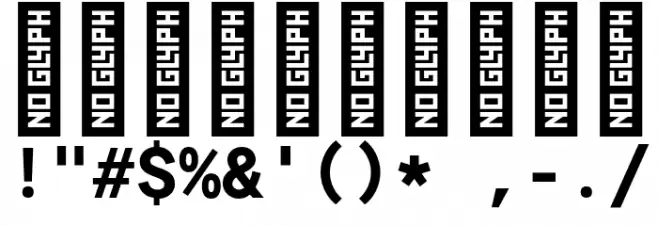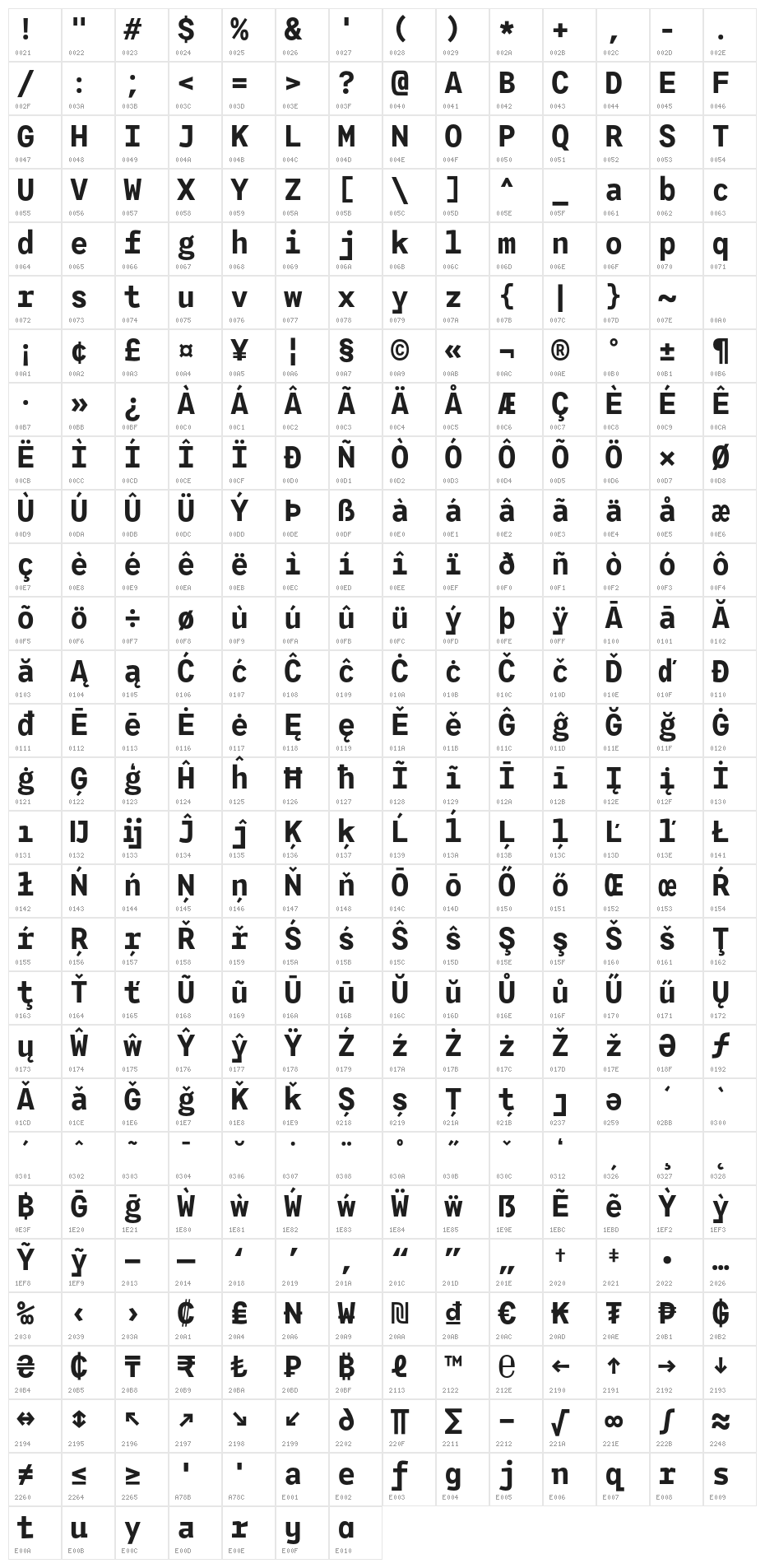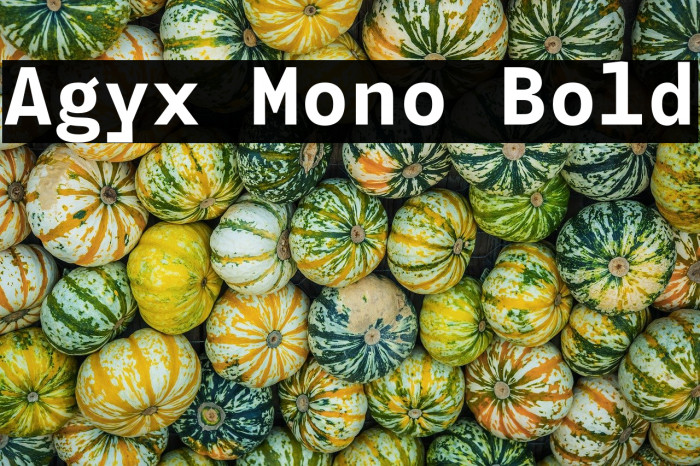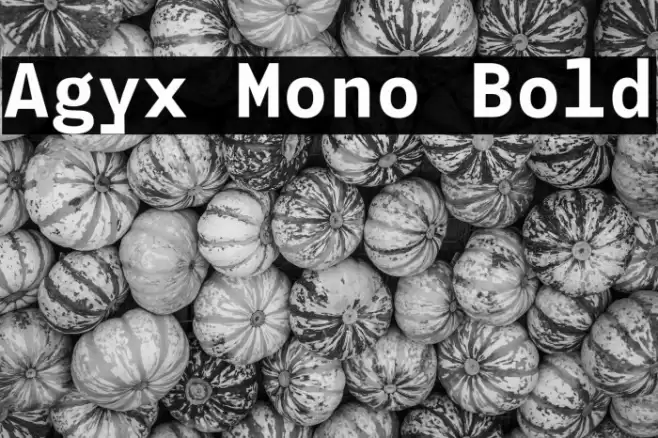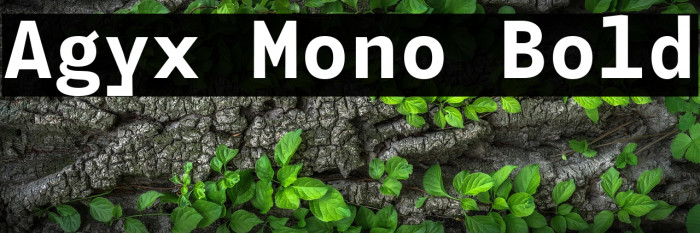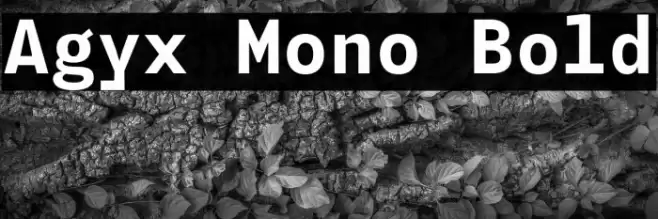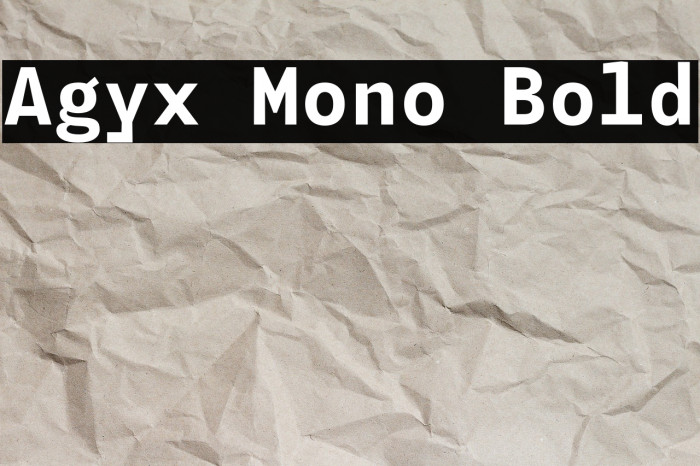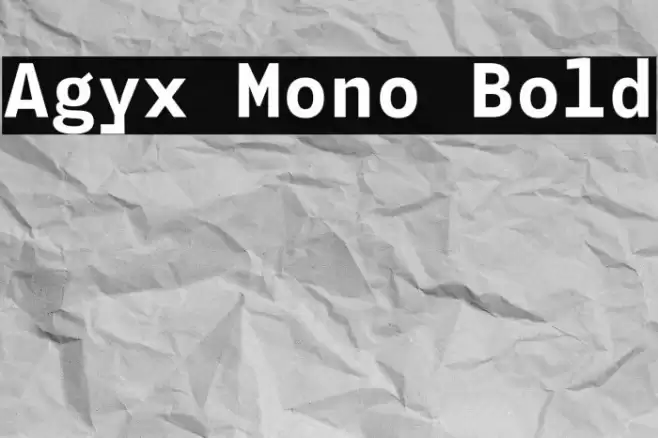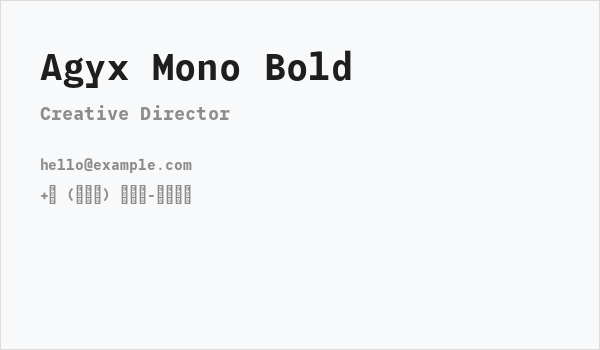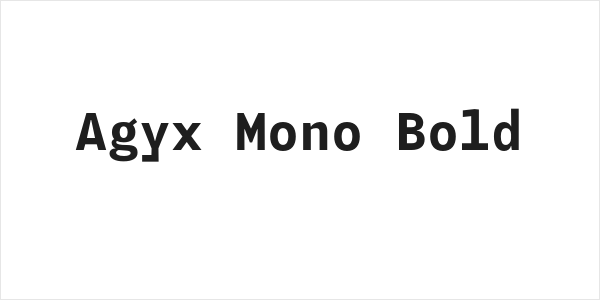
Agyx Mono Bold Font
Agyx Mono Bold Description
This font features a bold, monospaced design with uniform character width, making it ideal for coding and technical documentation. The characters are well-defined with a strong presence, enhancing readability. The uppercase and lowercase letters maintain a consistent style, while the numbers and special characters are clear and distinct. The font's bold weight adds emphasis, making it suitable for headlines or titles where clarity is paramount.
| Use Case | Headlines, Coding, Technical documentation |
| Proposed Projects | Perfect for coding environments, technical documentation, and any project requiring clear, uniform text presentation. |